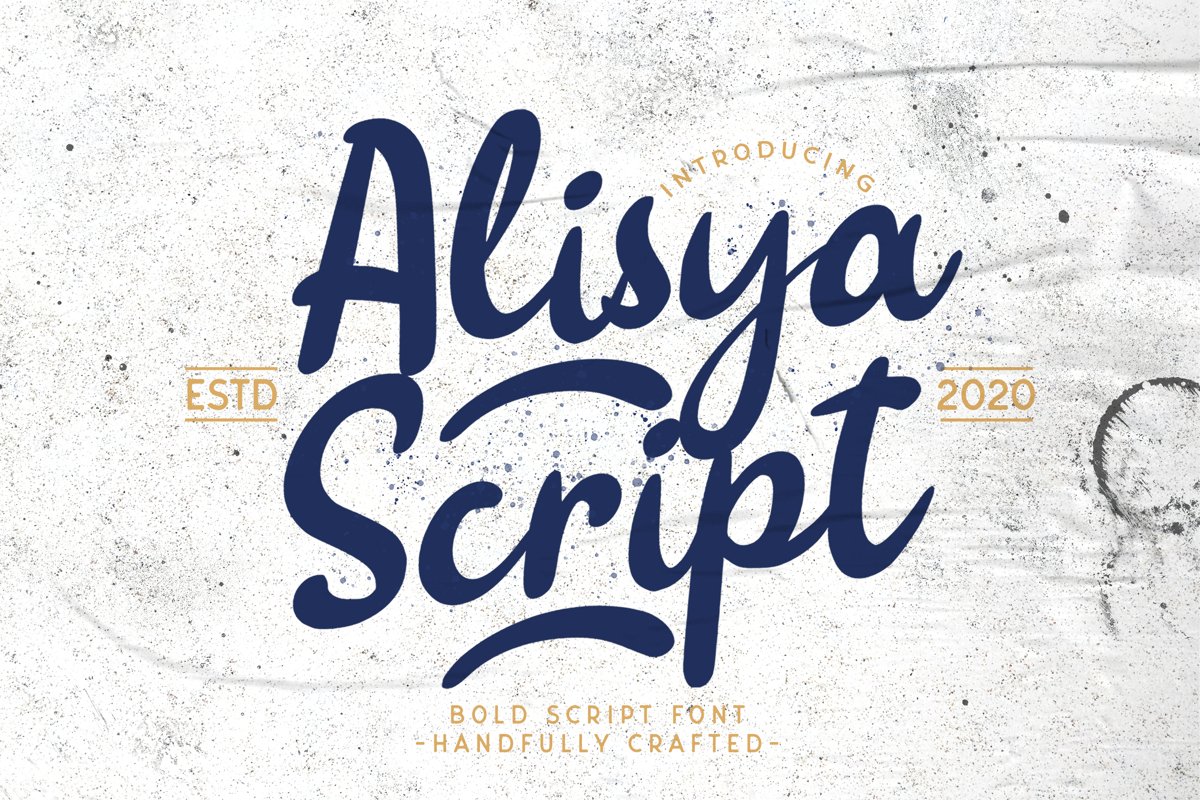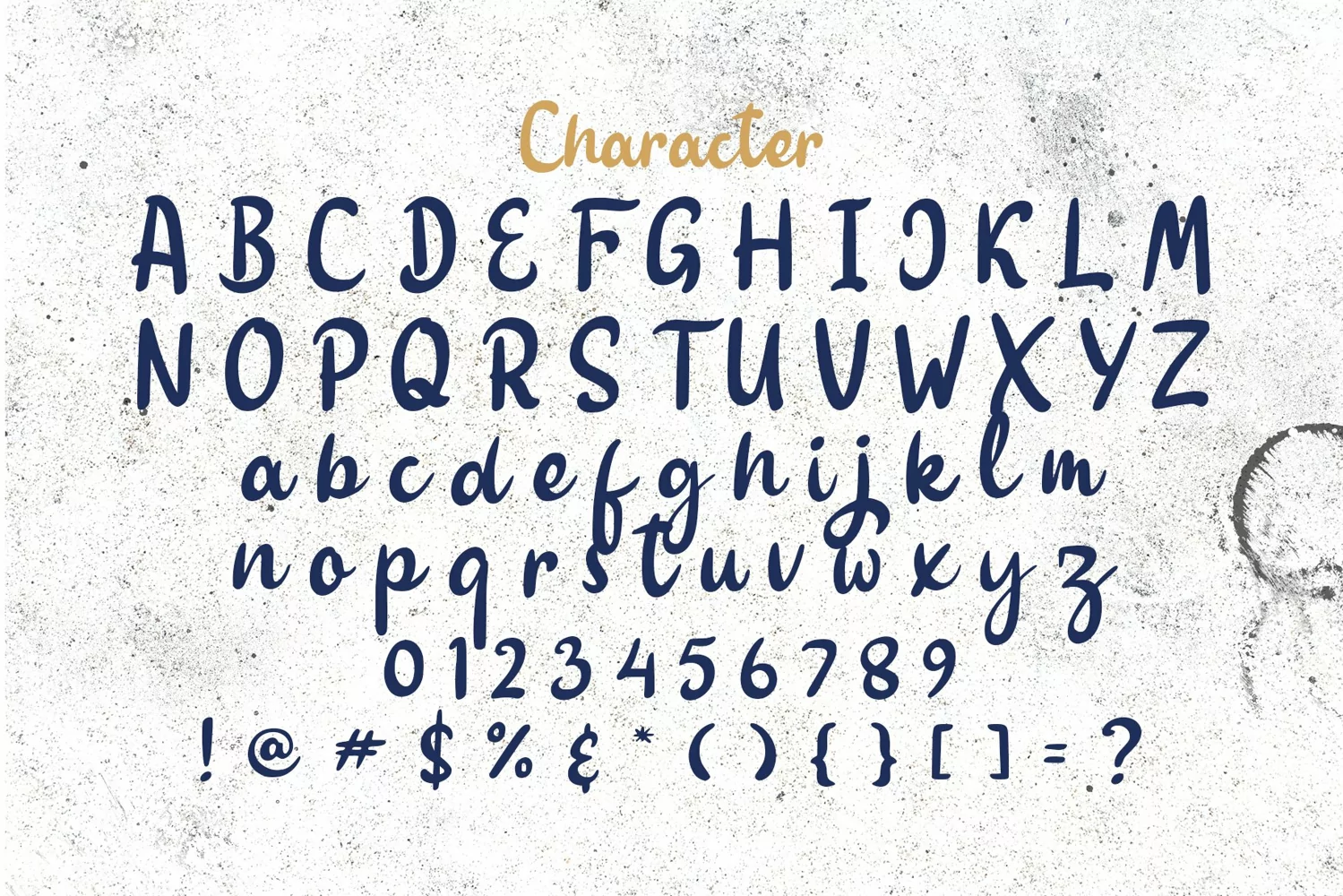
Alisya is a bold script typeface. Perfect for display, quotes, poster, logo, logotype, branding, crafting needs, event needs, signature, wedding needs, packaging, merchandise, header, tittle business card and many more.